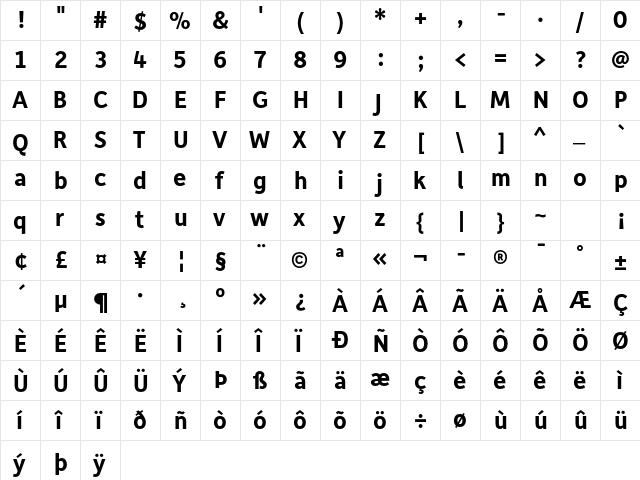
Depot Bold
| Foundry | C.Dickinson |
| Designer | C.Dickinson |
Design Context for Depot Typeface
Depot offers clean, dependable letterforms without strong stylistic allegiance, making it a practical choice for designers who need flexibility. The heavy weight commands attention and anchors typographic hierarchies.
Pro Tip: Pair Depot with a font of contrasting weight or personality to build a more expressive typographic hierarchy.